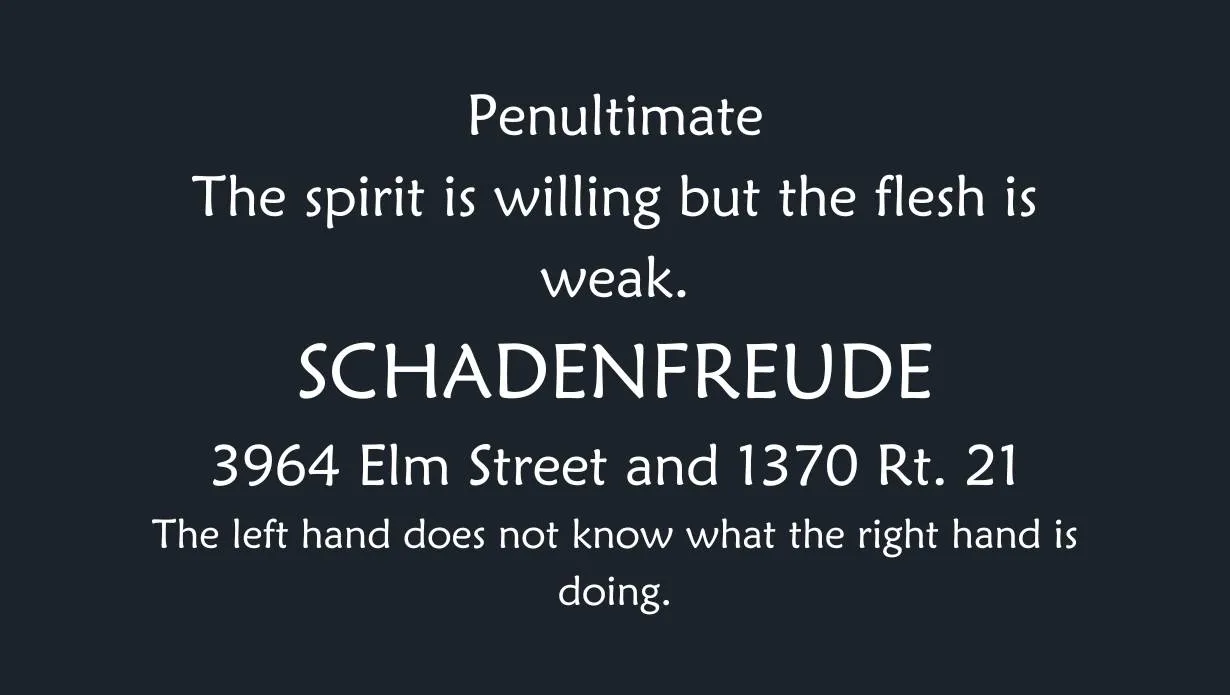
Crafted by Dennis Pasternak, the Maiandra GD font is an elegant and artistic font that turns your words into a beautiful piece of calligraphy.
With elegant curves and precise detailing, it adds a touch of sophistication and creativity to your projects. Versatile and suitable for various applications, Maiandra GD brings an artistic flair to your words.